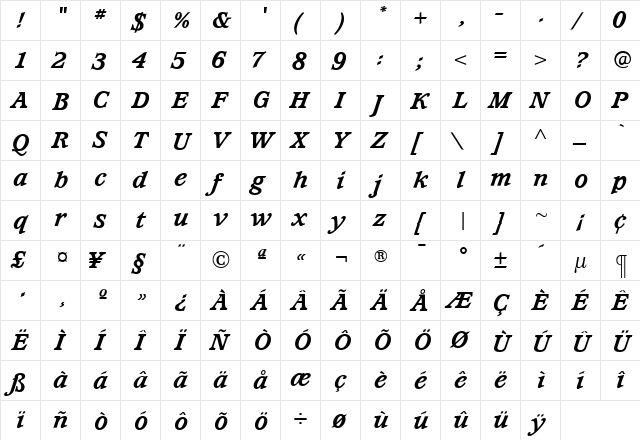
WaverlyExtraBoldItalic Roman Font Preview
Design Context for WaverlyExtraBoldItalic Typeface
WaverlyExtraBoldItalic is a composed and adaptable typeface that performs quietly and consistently across a wide range of design contexts. The dynamic lean of this cut emphasises speed and emphasis in any layout. The heavy weight commands attention and anchors typographic hierarchies.
Pro Tip: Try WaverlyExtraBoldItalic for annotation and caption copy alongside an upright companion — the contrast in angle creates a dynamic but ordered typographic system.